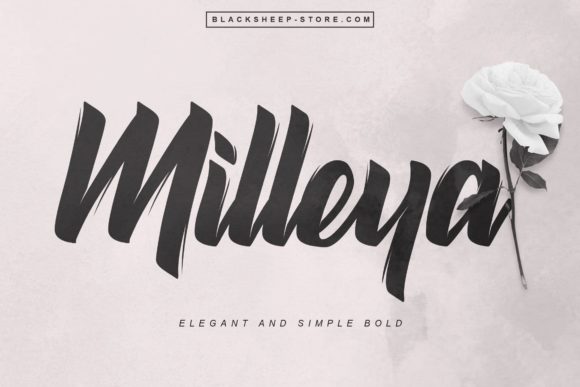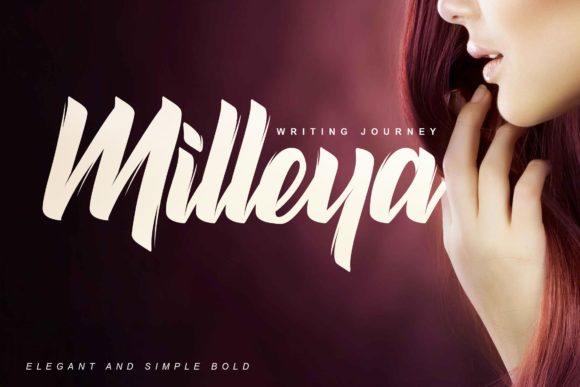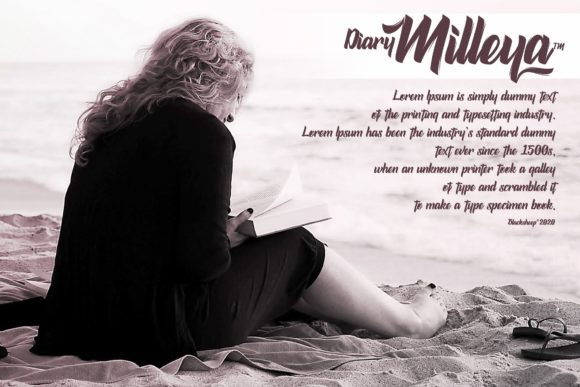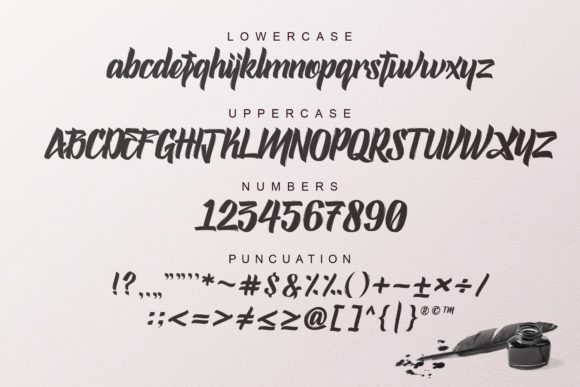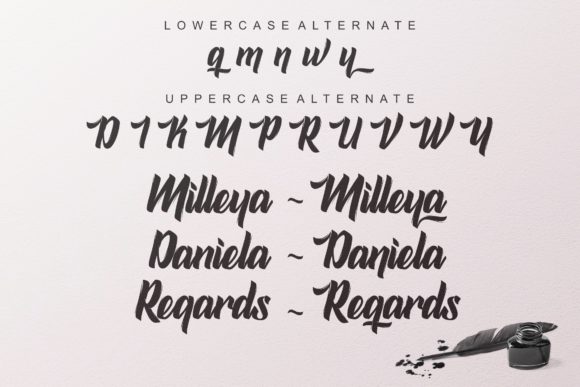
Milleya Font
About Milleya Font
Milleya looks bold, yet sophisticated and features chunky and extended characters that will look particularly adept when used in logos, branding, packaging design, and much more. This masterfully designed handwritten font is a true must-have.